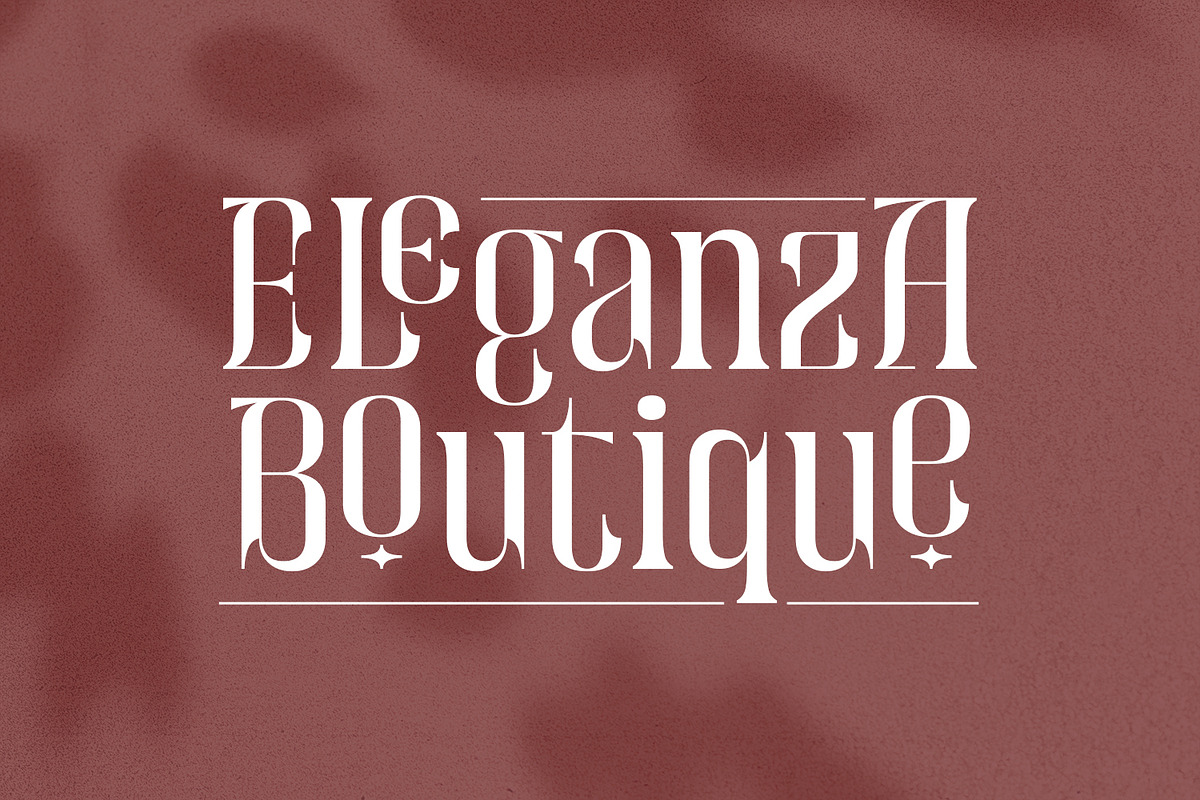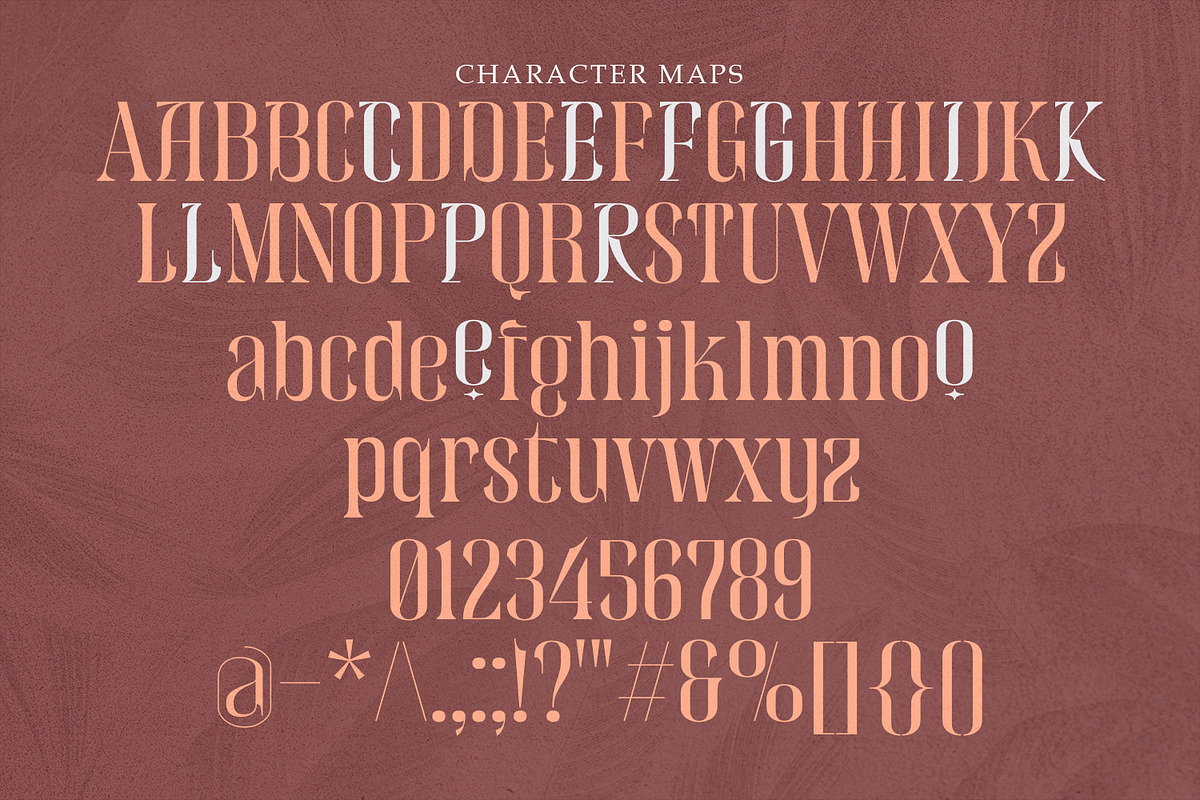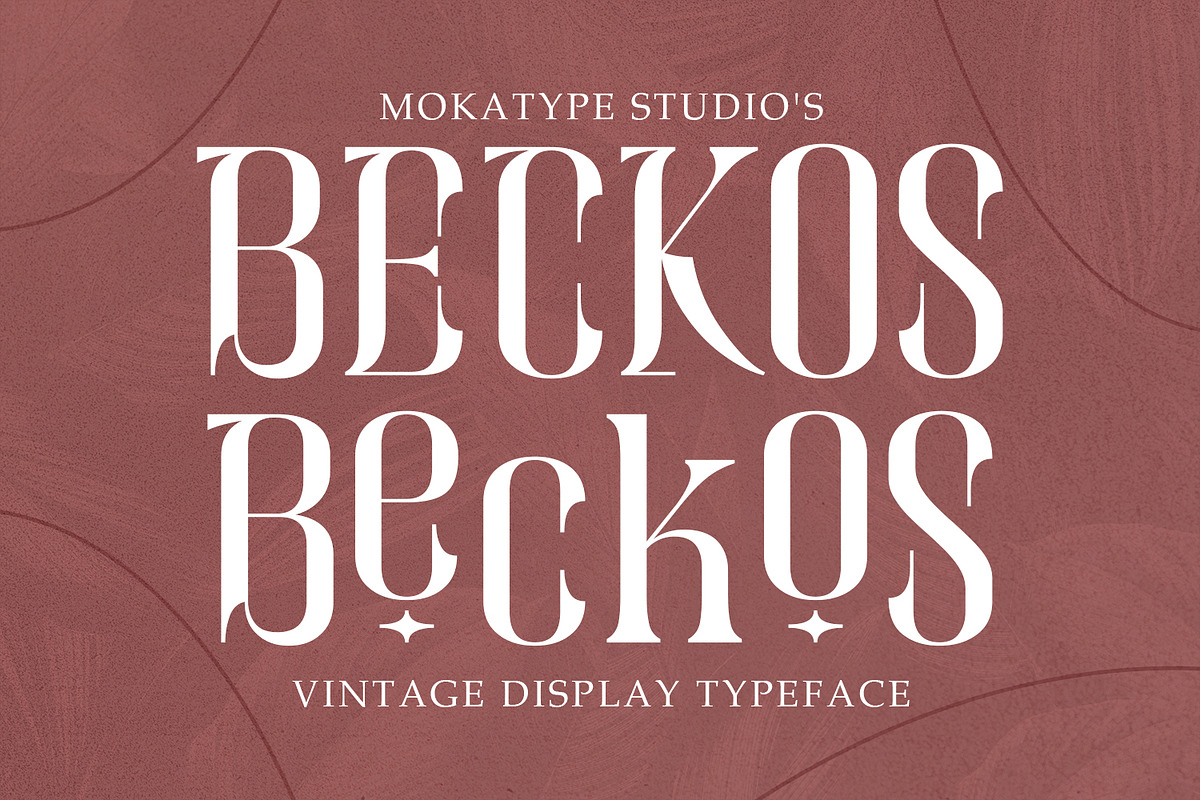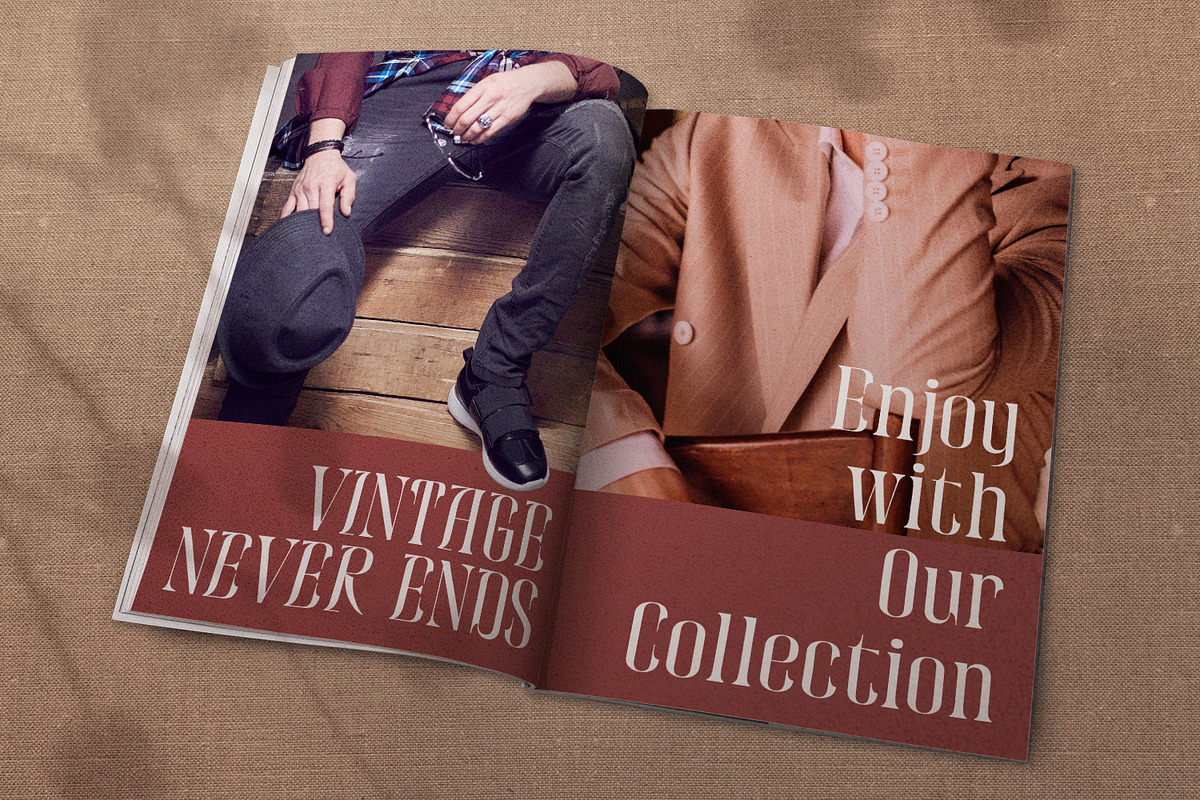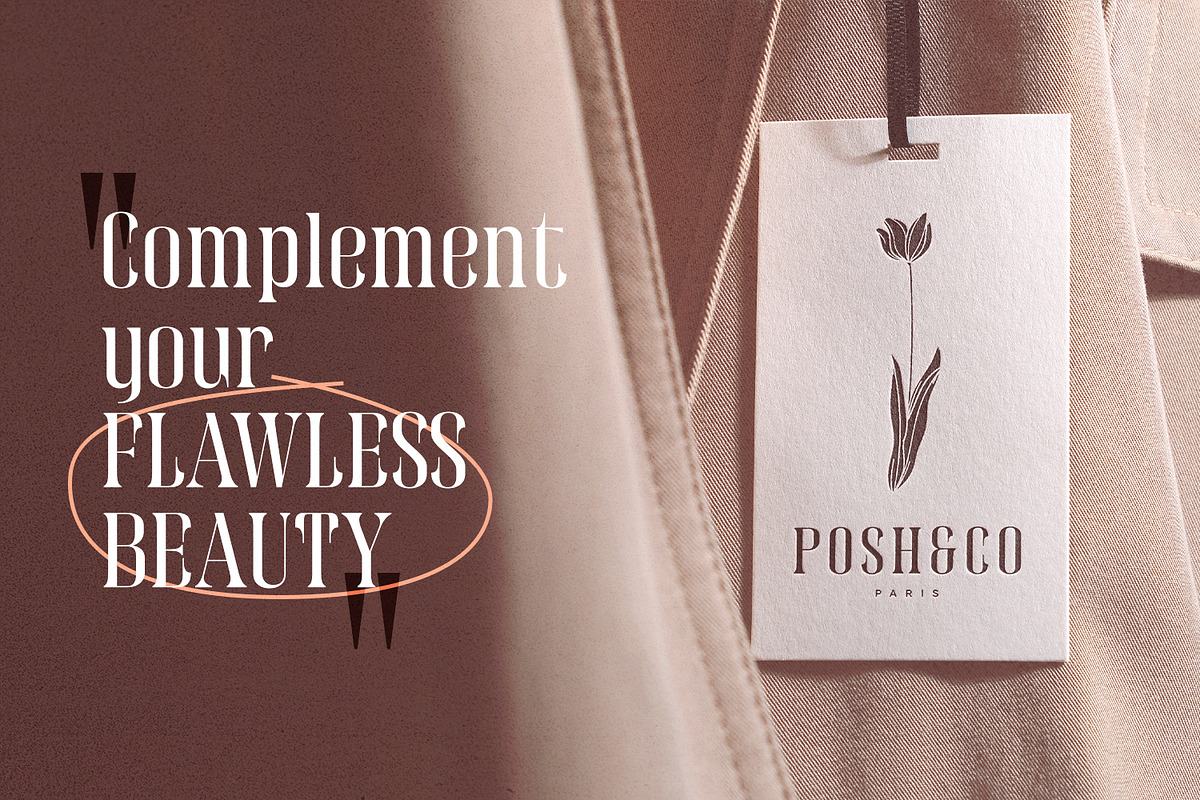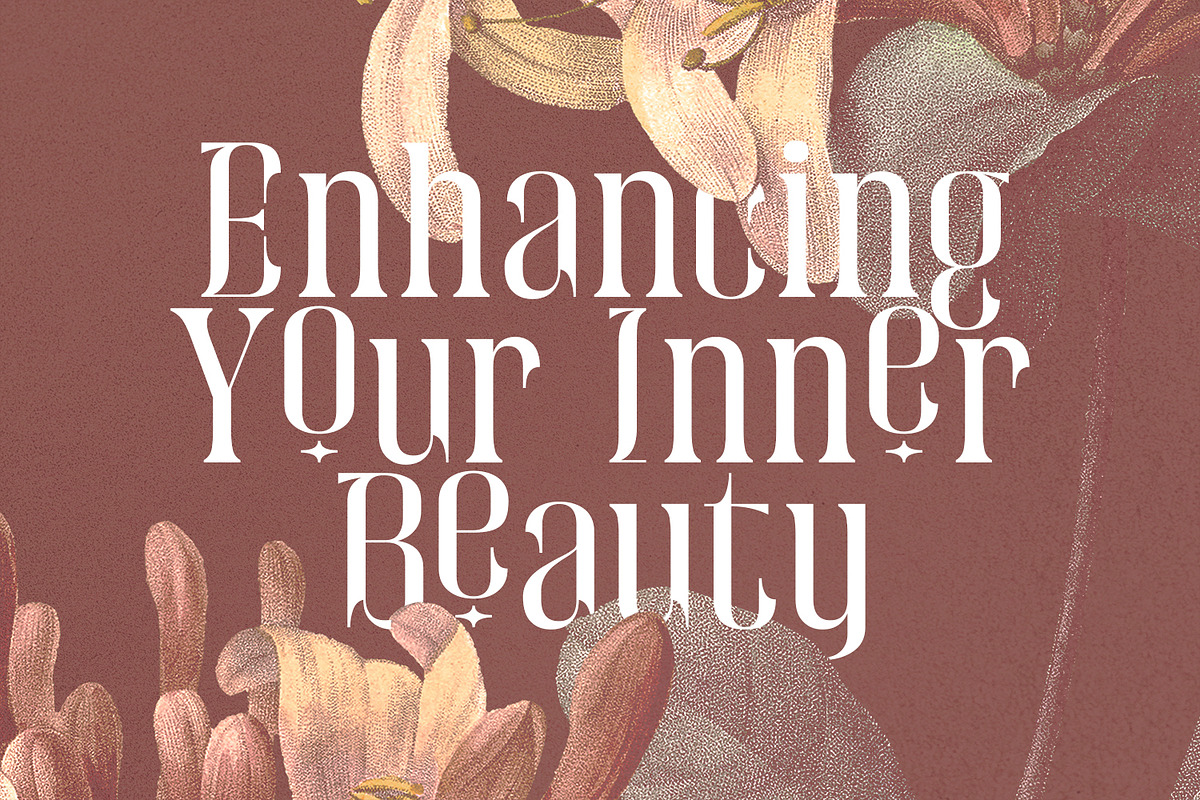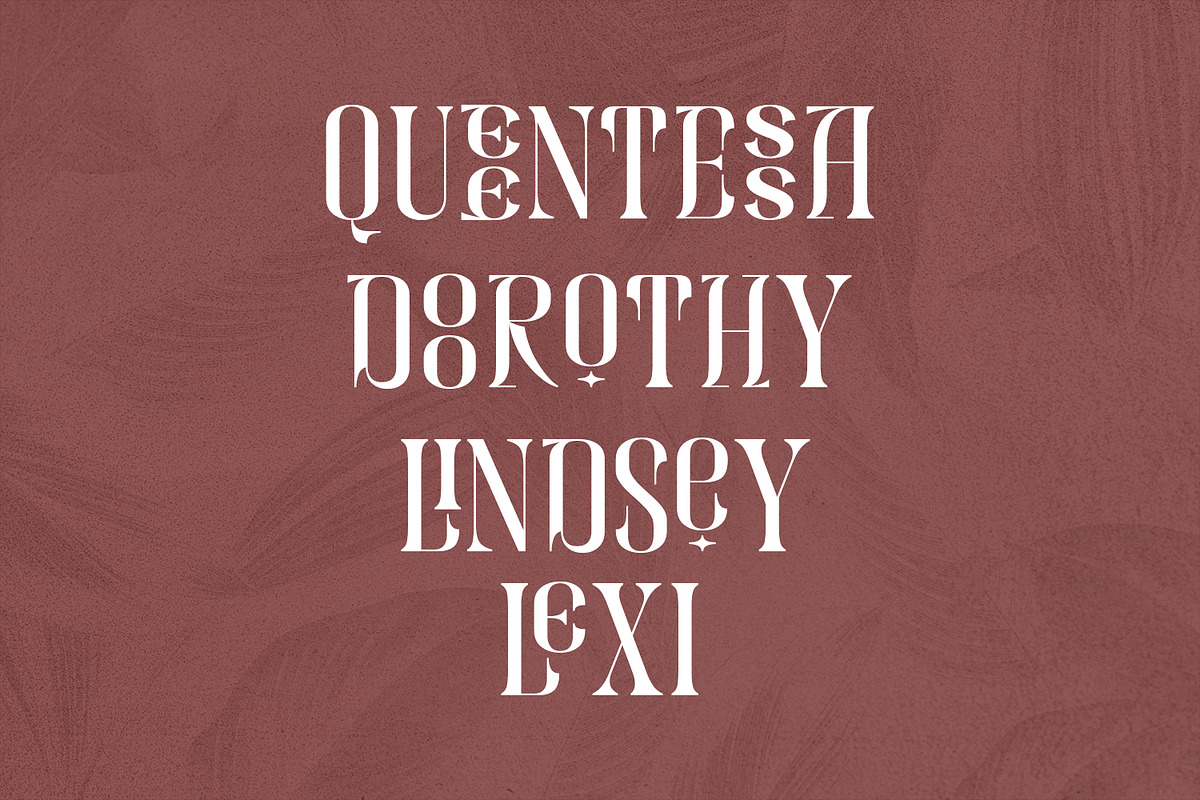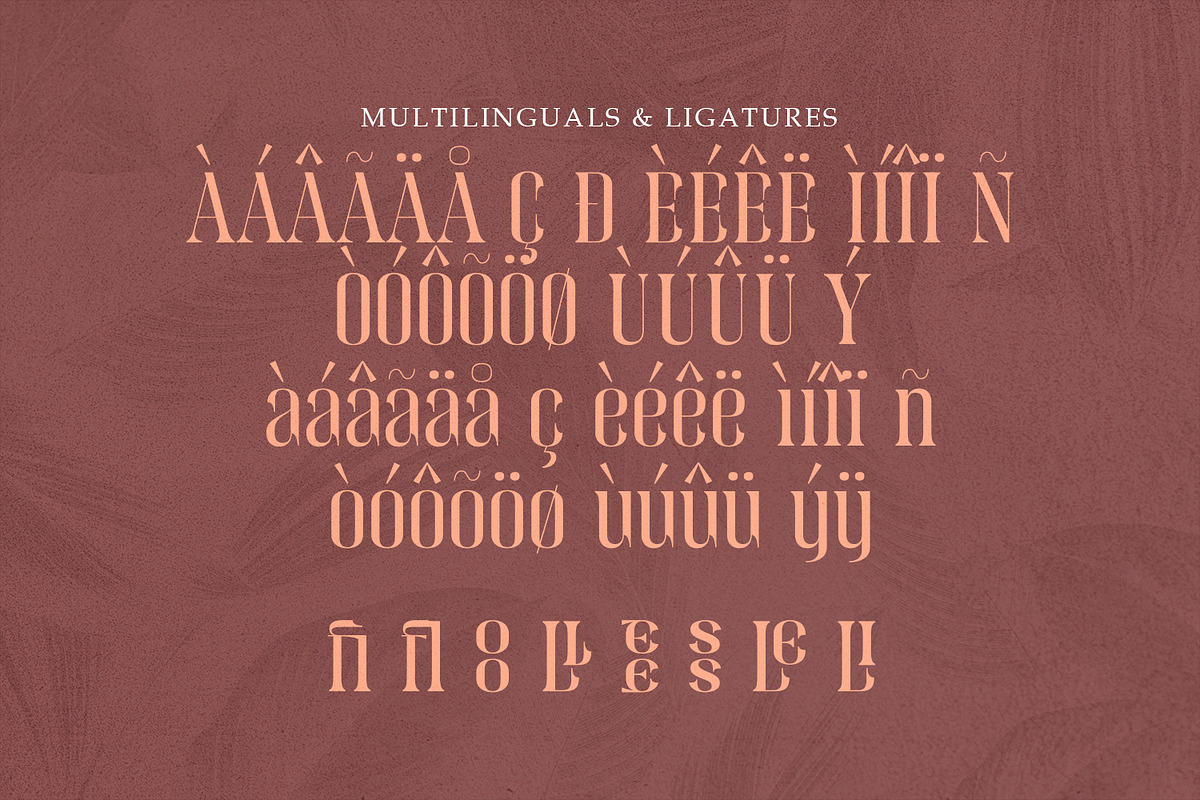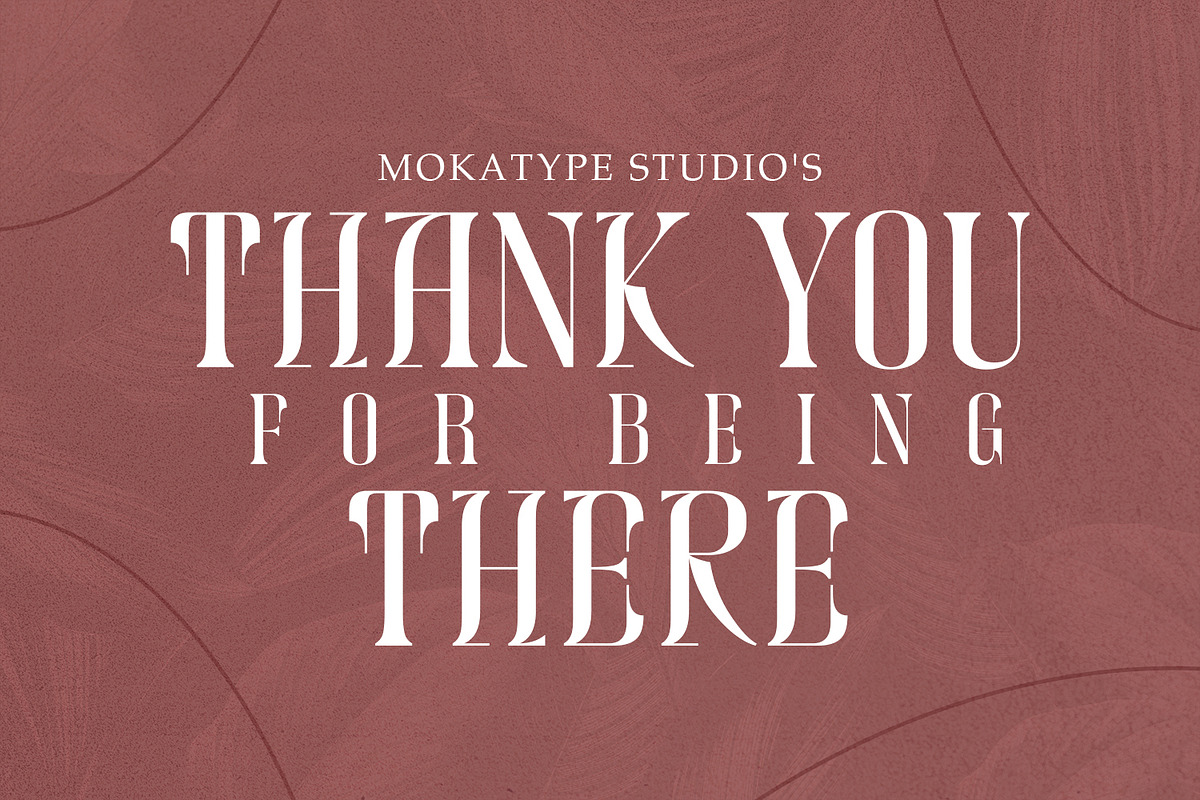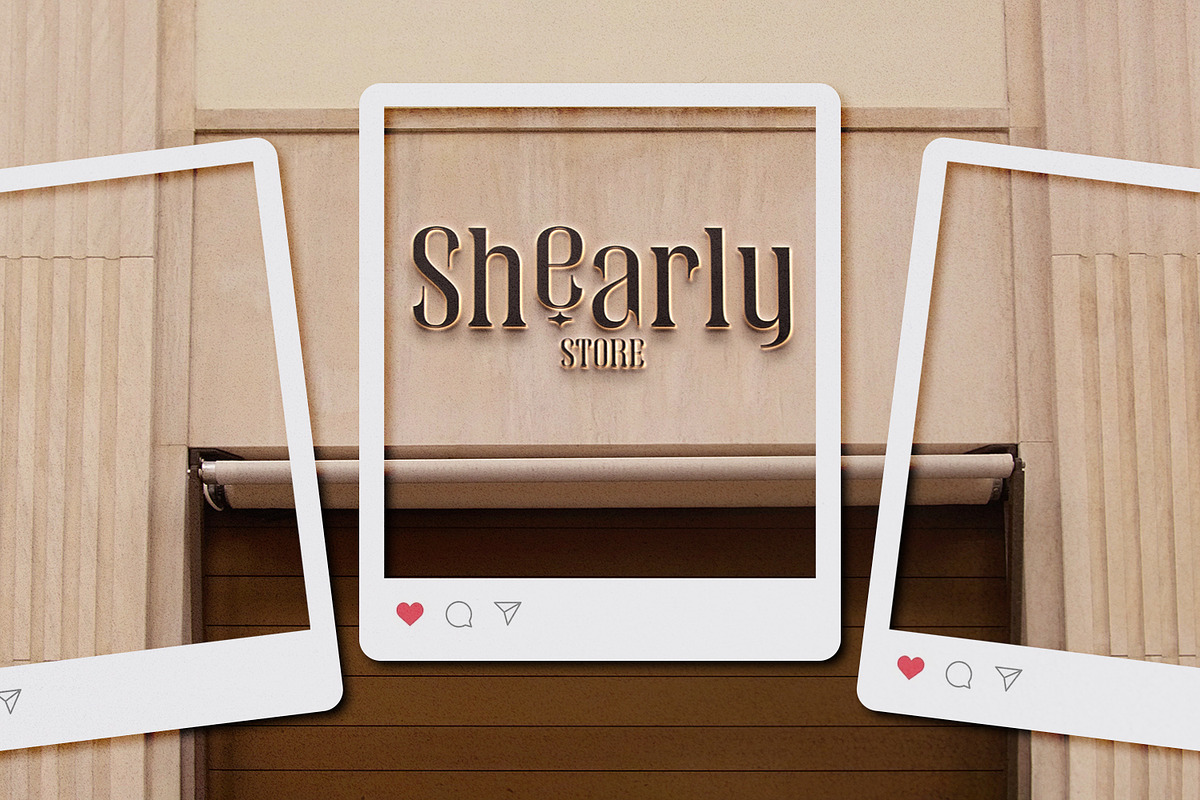
Beckos - Unique Serif Display
Beckos is an experimental font inspired by Vintage typography and modern serif font. This font is developed to look elegant and classy. This font is built with alternate, ligature that can be used in any design need that wants to look elegant, classy, and luxurious.
- Ligatures (Opentype features)